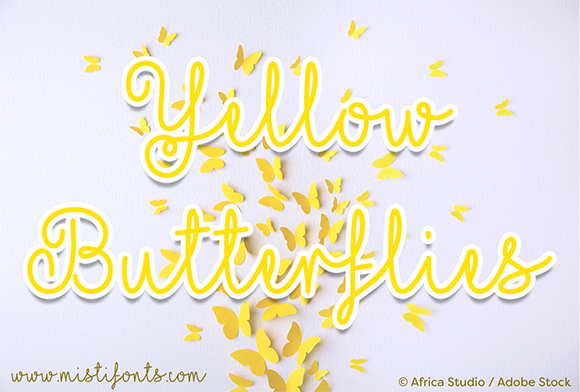
Yellow Butterflies Font
Behold, the Yellow Butterflies Font - a captivating script font that's sure to add a touch of magic to your creative endeavors! Embark on a whimsical journey with this charming font, perfect for designers and crafters alike.
Step into a world of enchantment, where your words dance and twirl like delicate butterflies. Yellow Butterflies Font is a symphony of elegance, a fusion of classic cursive with a modern twist. Its graceful strokes and playful loops bring a sense of joy and whimsy to any project, leaving a lasting impression on your audience.
With Yellow Butterflies Font, your designs will blossom into a symphony of colors. Whether you're crafting invitations, greeting cards, logos, or social media posts, this font will elevate your creations to new heights of artistry. Its versatility knows no bounds, adapting seamlessly to a myriad of themes and styles, from whimsical and playful to elegant and sophisticated.
Unleash your creativity and let your imagination soar with the Yellow Butterflies Font. Its user-friendly nature makes it a delight to work with, ensuring a smooth and effortless experience. Embrace the beauty of this font and watch your designs transform into captivating masterpieces.
So, why settle for ordinary when you can have extraordinary? Choose the Yellow Butterflies Font and embark on a creative journey that will leave you spellbound. Let your words take flight and touch the hearts of your audience with this enchanting script font.